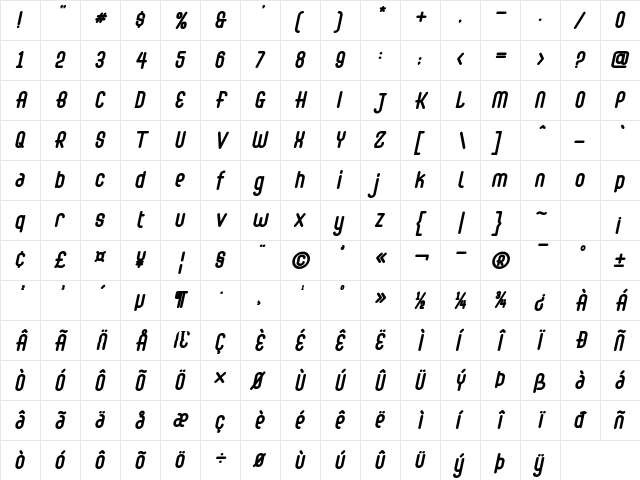
Abingdon Bold Italic
Design Context for Abingdon Typeface
Abingdon offers clean, dependable letterforms without strong stylistic allegiance, making it a practical choice for designers who need flexibility. Its italic angle brings a sense of urgency and motion to the letterforms. Its bold stroke weight gives it real presence on the page.
Pro Tip: Try Abingdon for annotation and caption copy alongside an upright companion — the contrast in angle creates a dynamic but ordered typographic system.